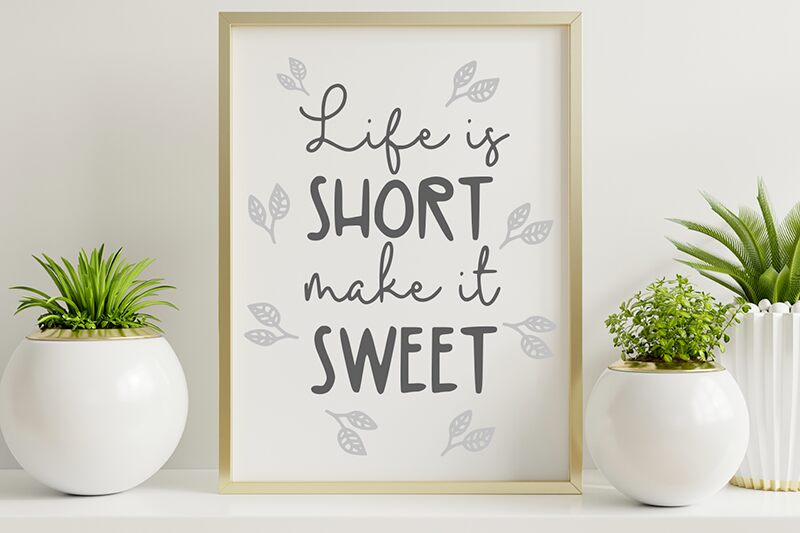
Baby Mayora Slab
Introducing Baby Mayora Slab, the fun and lively display font designed by Panggah Laksono at Abo Daniel Studio. Featuring curly lettering, this font is perfect for creative projects such as crafting greeting cards, designing logos, and making posters.